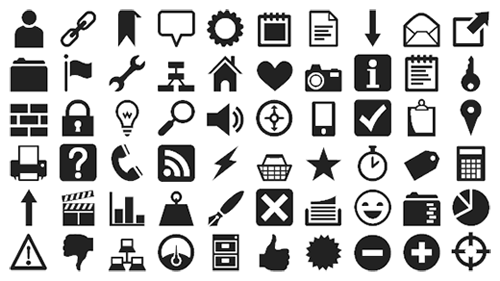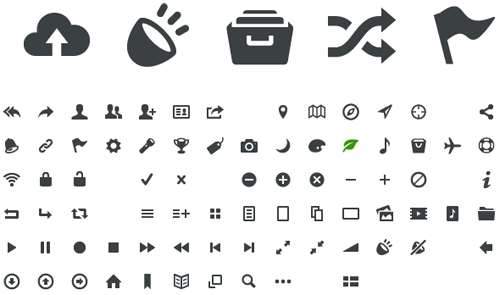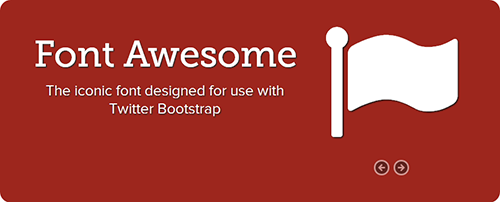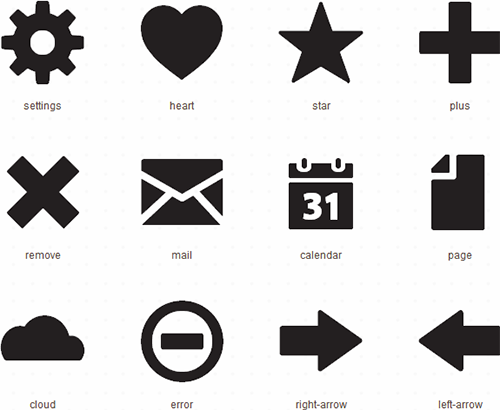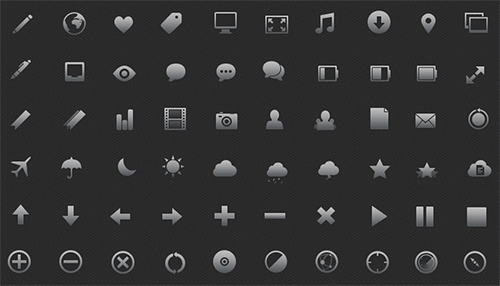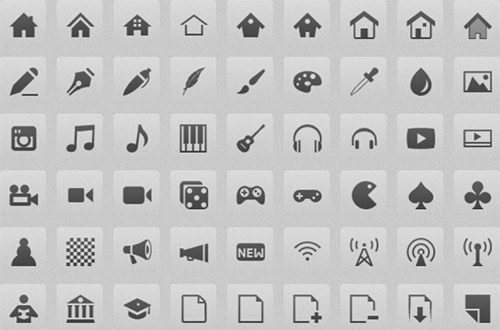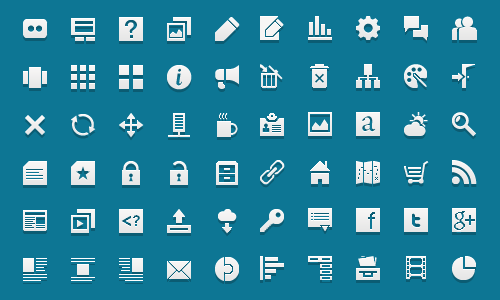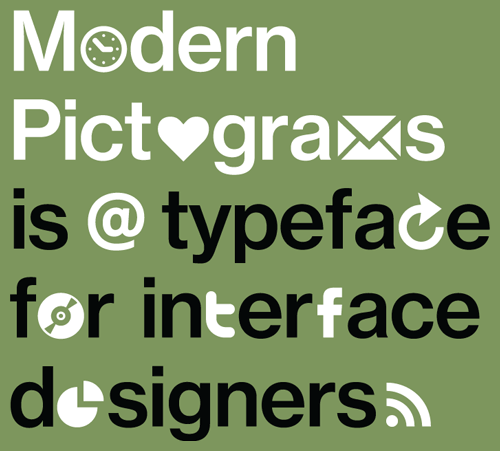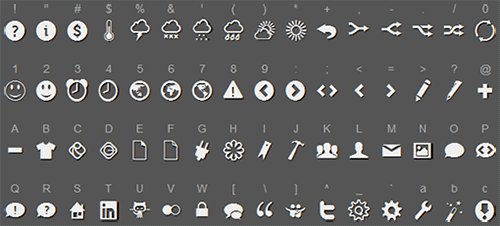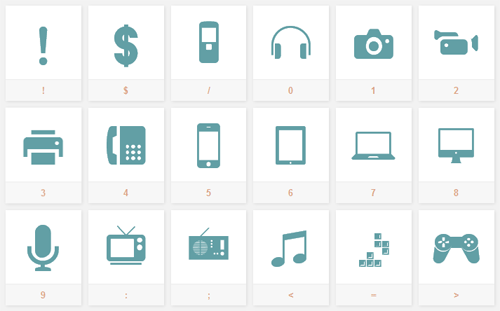
We all have widely used icons mainly as images. This new concept of font icons is simply amazing. We came through this concept of font icons for the first time on CSS Tricks and later realized that we have been viewing these fonts all around as dingbats, pictograms, etc. It is fairly easy to play around with the size, color, hover effects, etc of the icons that are actually fonts. The biggest advantage is that the font icons are highly scalable thus you will no longer have to hunt for the icons with specific dimensions. You can readily implement these font icons by using Typekit, WebInk and the likes. If you are looking for its HTML implementation, you can visit CSS Tricks. Here we have 13 beautifully designed free icon fonts. Take a look!
- A Free Icon Web Font
- Entypo
- Font Awesome
- Foundation Icon Fonts 2!
- Glyph Icons
- IcoMoon
- Jigsoar Icons
- Mordern Pictograms
- Mordern Pictograms 2
- Raphaël Icon Set via @font face
- Sosa Icon Font
- The Noun Project
- Typicons